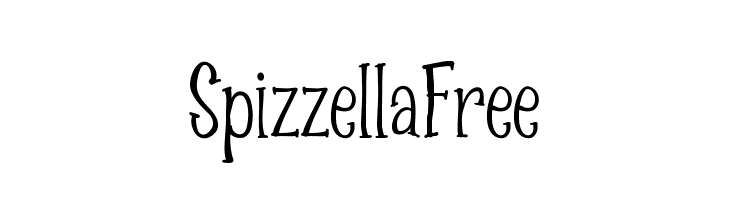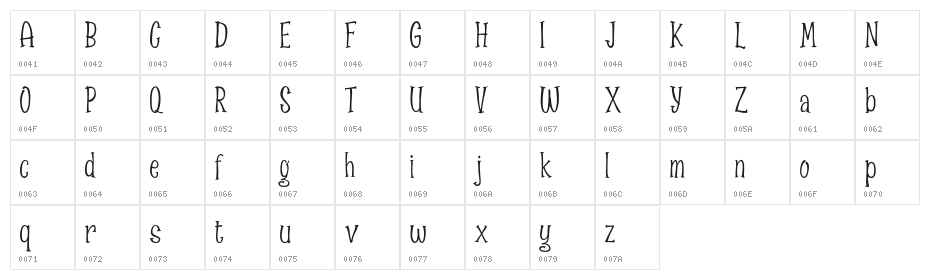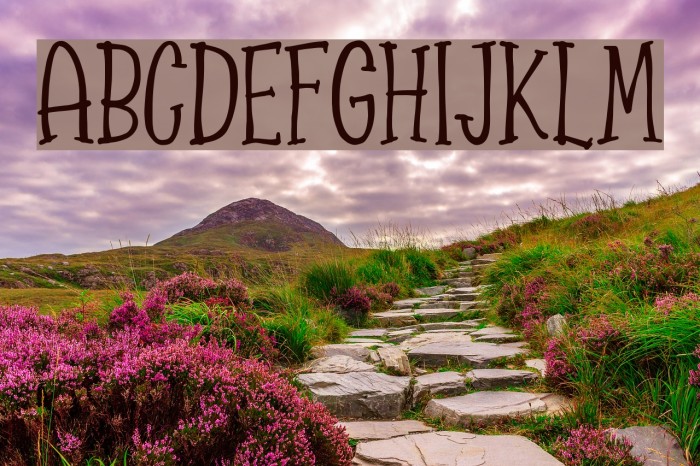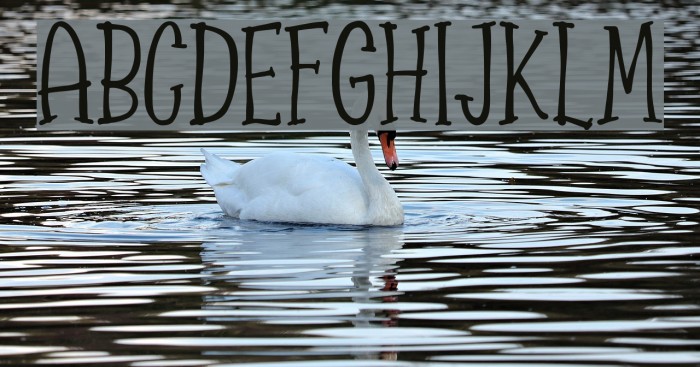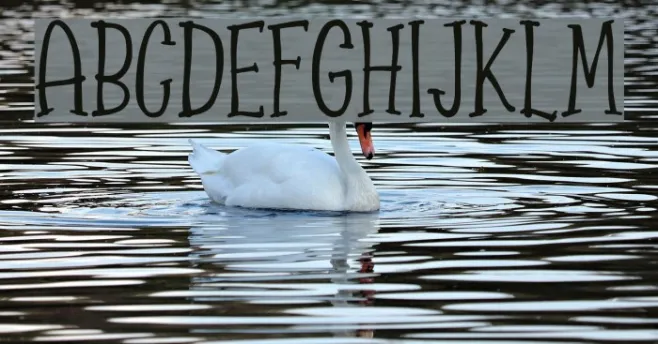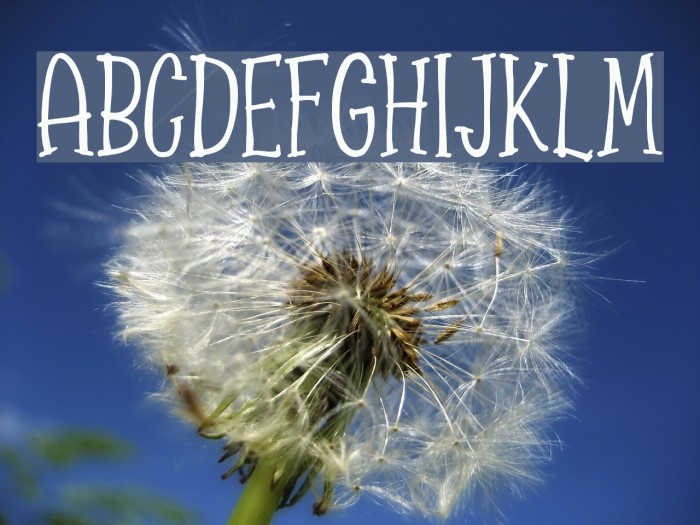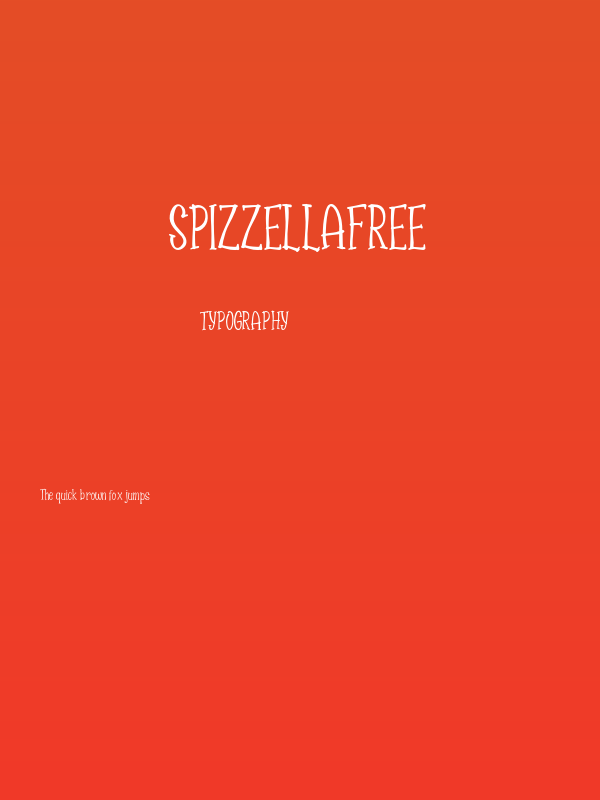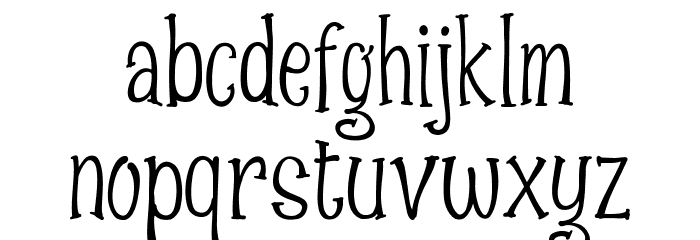
SpizzellaFree Font
SpizzellaFree Description
This font features a playful and whimsical design, characterized by its uneven strokes and slightly exaggerated serifs. The letters have a hand-drawn quality, giving them a unique and artistic flair. The uppercase letters are tall and narrow, while the lowercase letters maintain a consistent style with a slightly more compact form. The overall appearance is both casual and creative, making it suitable for projects that require a touch of personality and charm. The font's distinctive style is further enhanced by its moderate contrast in stroke thickness, adding to its visual interest.
| Overall Style | Whimsical |
| Proposed Projects | Ideal for children's books, creative branding, playful invitations, and artistic posters. |